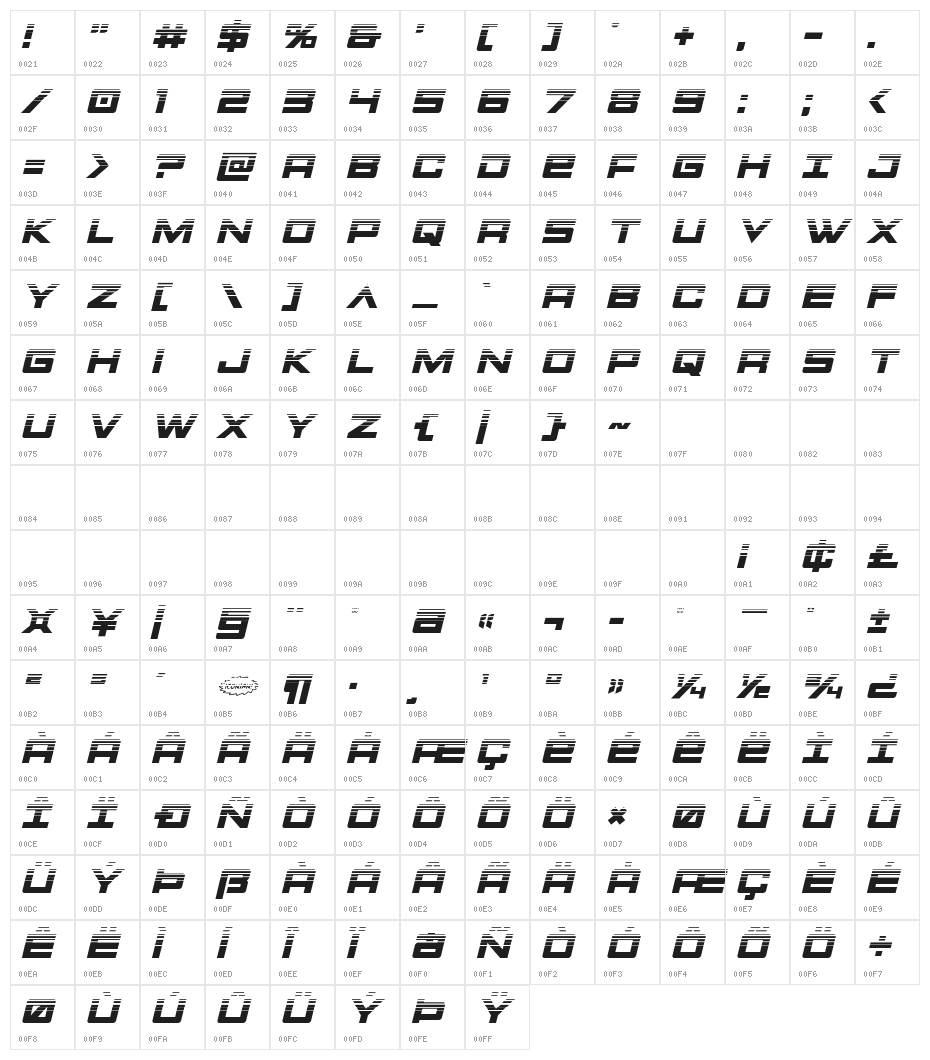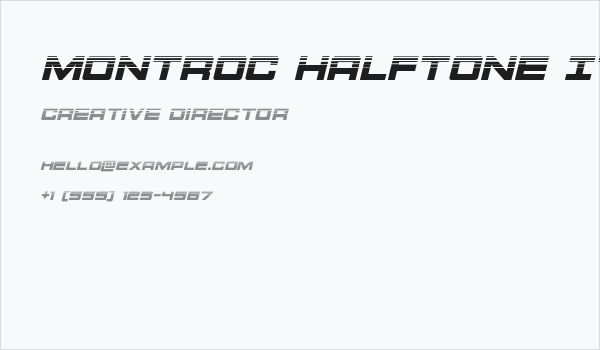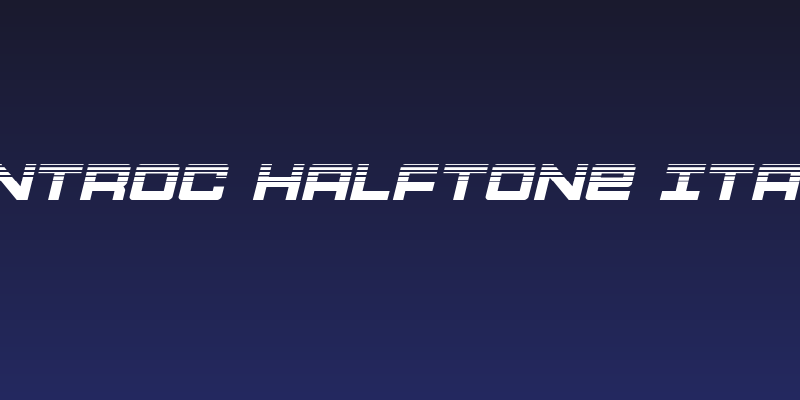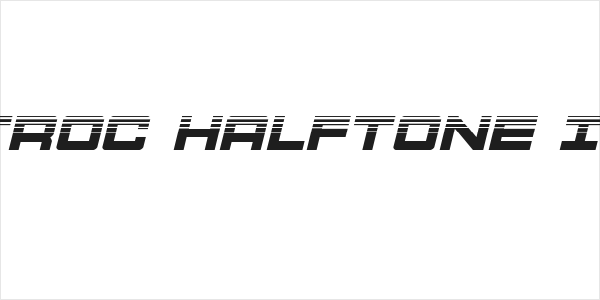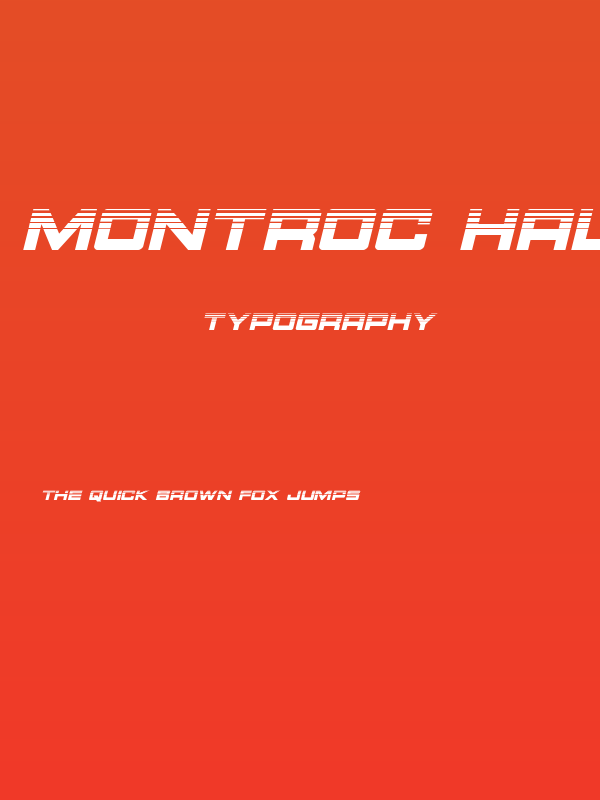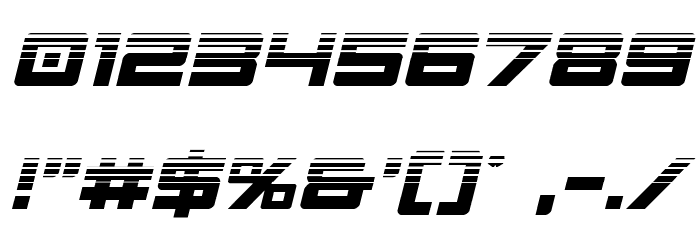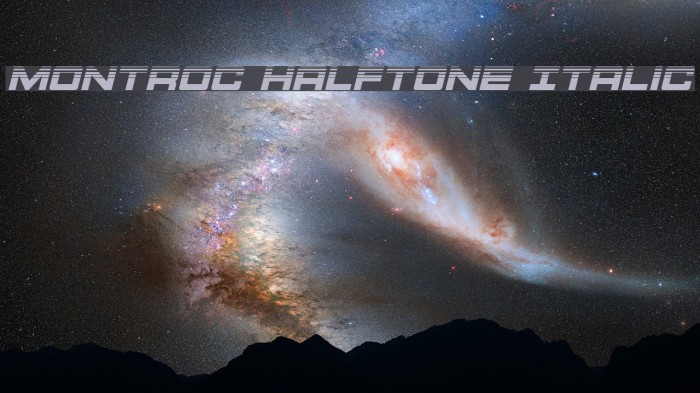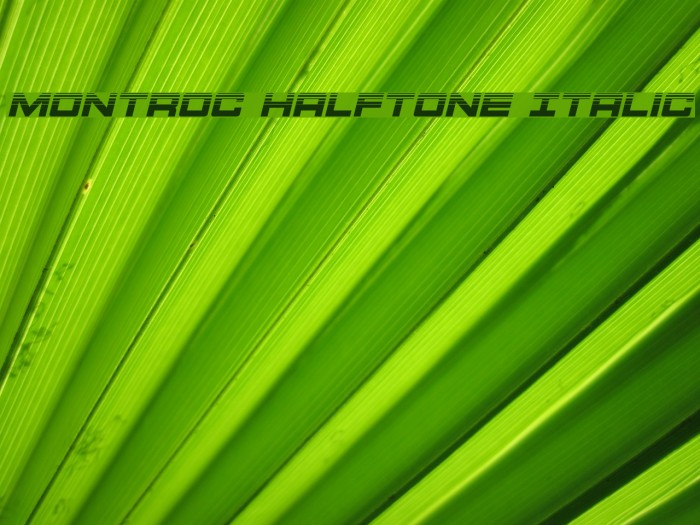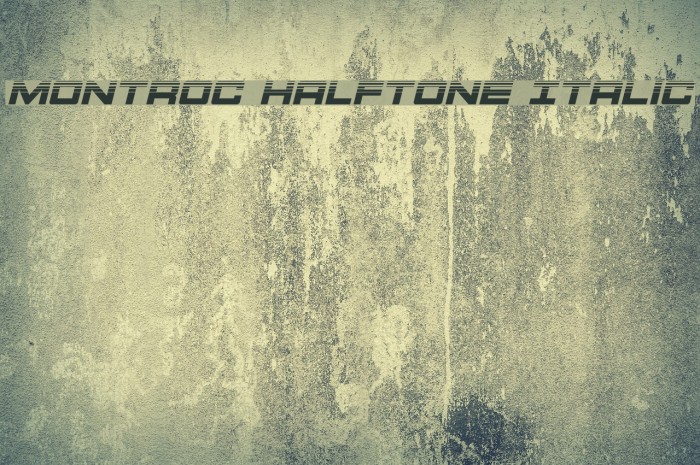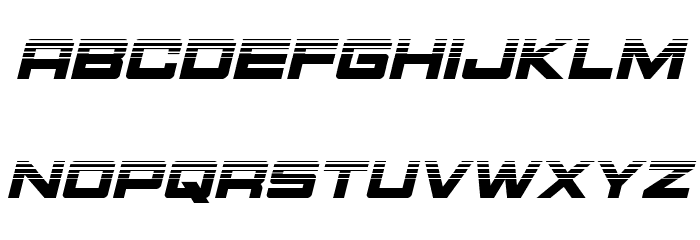
Montroc Halftone Italic Font
Montroc Halftone Italic Description
This font features a bold, italicized style with a halftone effect that gives it a modern and dynamic appearance. The characters are constructed with horizontal lines that create a sense of movement and energy. The uppercase and lowercase letters maintain a consistent design, while the numerals and special characters complement the overall aesthetic. The font's unique halftone pattern adds depth and texture, making it stand out in various design applications.
| Use Case | Logos, Headlines, Posters |
| Proposed Projects | Ideal for futuristic designs, tech branding, sports logos, and dynamic posters. |